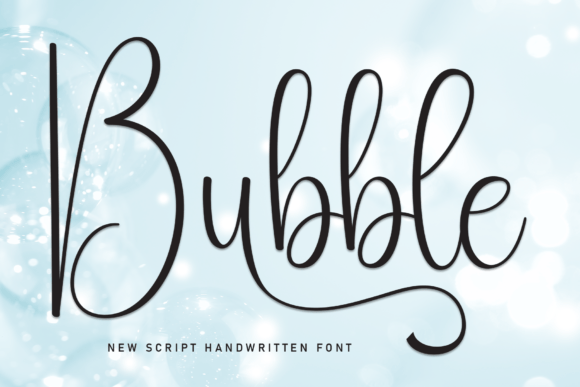
The Perfect Blend of Whimsy and Charm: Introducing Bubble Font
Have you ever stared at a blank page, waiting for inspiration to strike? I know I have – countless times, in fact. It’s those moments when creativity seems to be hiding, and all you can think about is getting your ideas down on paper. But then, something magical happens. You stumble upon a font that makes your heart skip a beat, and suddenly, the blank page transforms into a canvas of endless possibilities.
Meet Bubble Font, a sweet and friendly handwritten font that’s sure to bring a smile to your face. This cute and fun font is perfect for writing wedding invitations, cards, or any other design that needs a dash of whimsy. Whether you’re a seasoned designer or a DIY enthusiast, Bubble Font is an invaluable asset that will add a personal touch to your creations.
With its versatility and charm, Bubble Font is a must-have for designers looking to inject some personality into their work. So, what are you waiting for? Let’s dive into the world of Bubble Font and discover the endless possibilities it has to offer!
Bubble Font Key Features
- Unique Characteristics: The font features a distinctive, rounded design with a bubbly appearance, making it ideal for playful, creative, and child-friendly applications.
- Font Variations: Available in multiple styles, including Regular, Bold, Italic, and Bold Italic, providing designers with options for emphasis and contrast.
Bubble Font Review
I recently had the chance to work with the Bubble Font, and I must say, it’s a unique and eye-catching option for designers.
- ✨ Playful and whimsical aesthetic: The Bubble Font is perfect for creating a fun and lighthearted atmosphere in any design project.
- ✨ Versatility: This font can be used in a variety of settings, from children’s book covers to social media graphics.
- ✨ Easy to read: Despite its playful appearance, the Bubble Font is surprisingly easy to read, even in smaller sizes.
- ⚠️ Limited legibility at very small sizes: While the font is easy to read in most cases, it can become difficult to decipher when used in extremely small sizes.
- ⚠️ Not suitable for formal or professional applications: The Bubble Font’s playful nature makes it less suitable for formal or professional designs, such as business reports or resumes.
Overall, the Bubble Font is a fun and versatile option for designers looking to add some personality to their projects. While it may have some limitations, it’s a great choice for the right application.
Bubble font is commonly used in:
– Party invitations
– Event announcements
– Children’s educational materials
– Digital signage
Tips for Getting the Most Out of Bubble Font
For best results, use bubble font in combination with bright colors and playful graphics. Experiment with different font sizes and styles to create visually appealing designs.
Alternatives to Bubble Font
Great Vibes is a beautiful, cursive script font that’s perfect for adding a touch of elegance to your designs. It’s ideal for headings, quotes, and titles where you want to create a sense of sophistication. Unlike Bubble Font, Great Vibes has a more refined and polished look, making it suitable for a wide range of applications, from invitations to magazine covers.
Pacifico is a popular, modern script font that’s great for creating a relaxed, beachy vibe. It’s perfect for logos, headings, and titles where you want to evoke a sense of calmness and serenity. Compared to Bubble Font, Pacifico has a more casual and laid-back feel, making it ideal for designs related to travel, wellness, and lifestyle.